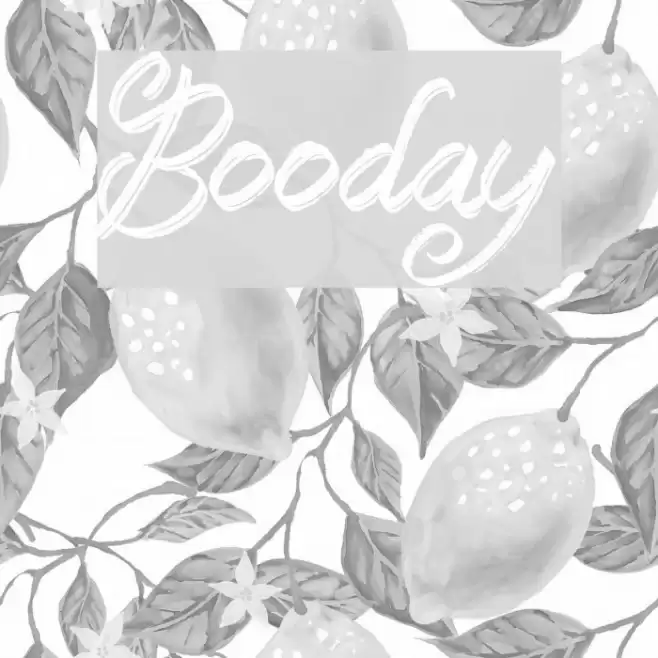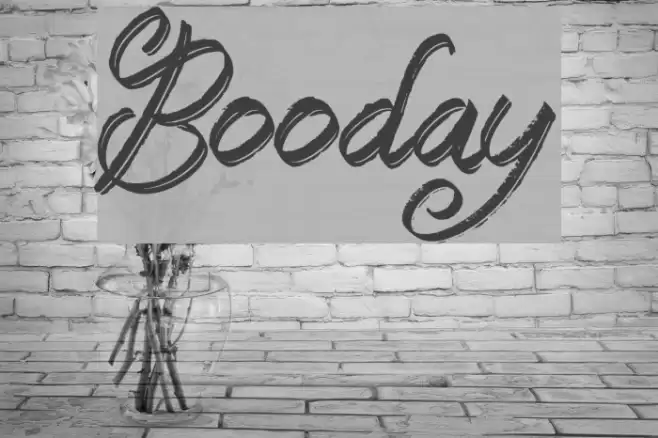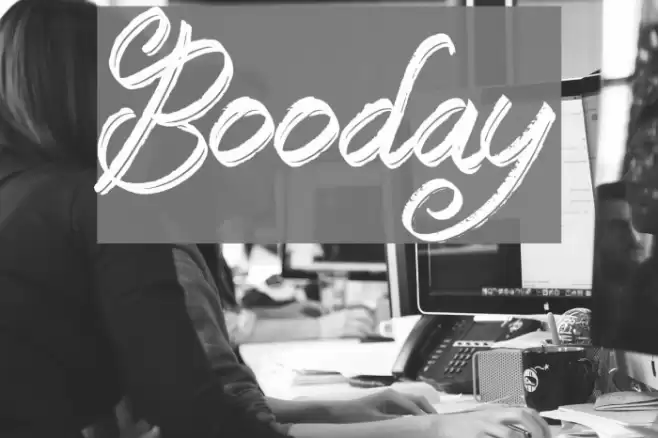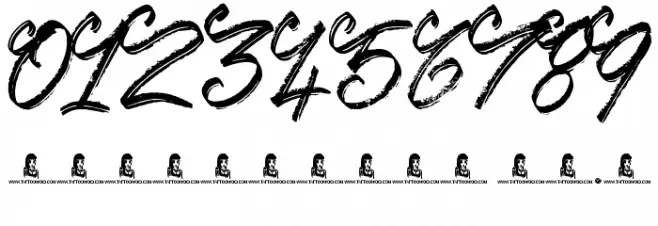
Booday Font
Booday Description
This font features a dynamic and expressive script style with a hand-drawn appearance. The letters are characterized by fluid strokes and a slightly rough texture, giving it an artistic and energetic feel. The uppercase letters are bold and sweeping, while the lowercase letters maintain a consistent flow with elegant loops and curves. Numbers and special characters follow the same stylistic approach, ensuring a cohesive look across all elements. The overall design is both modern and vintage, making it versatile for various creative applications.
A dynamic, hand-drawn script font with expressive strokes and a rough texture from Uncategorized fonts.
- Proposed Projects: Ideal for branding projects, artistic posters, event invitations, and creative logos.
- Use Case: Logos, Headlines, Artistic projects